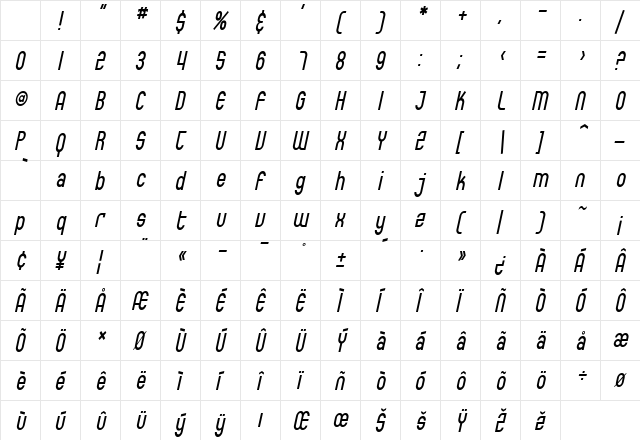
Complete SF Eccentric Opus Condensed Oblique glyph index. Displaying only characters natively supported by SF Eccentric Opus Condensed Oblique font.
SF Eccentric Opus Condensed is a composed and adaptable typeface that performs quietly and consistently across a wide range of design contexts. The slanted form adds forward momentum and visual energy. Its narrow stance lets it pack a punch even in space-constrained designs.